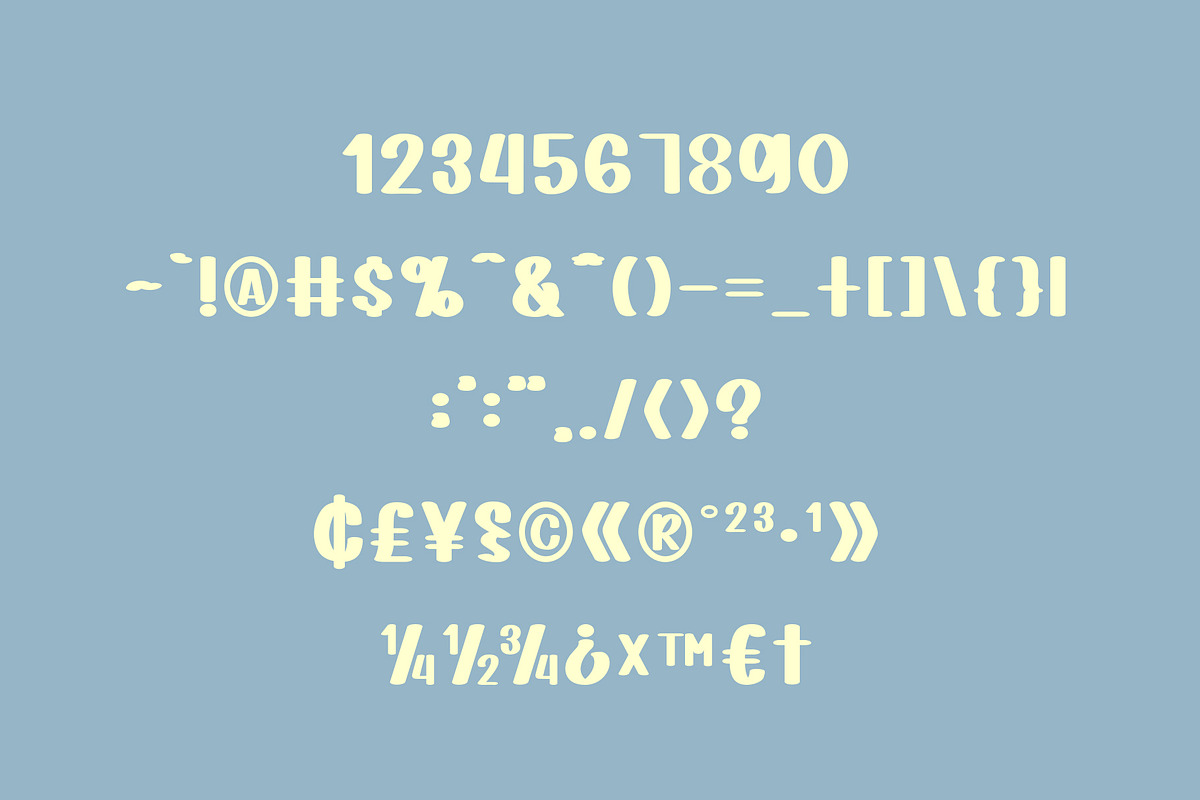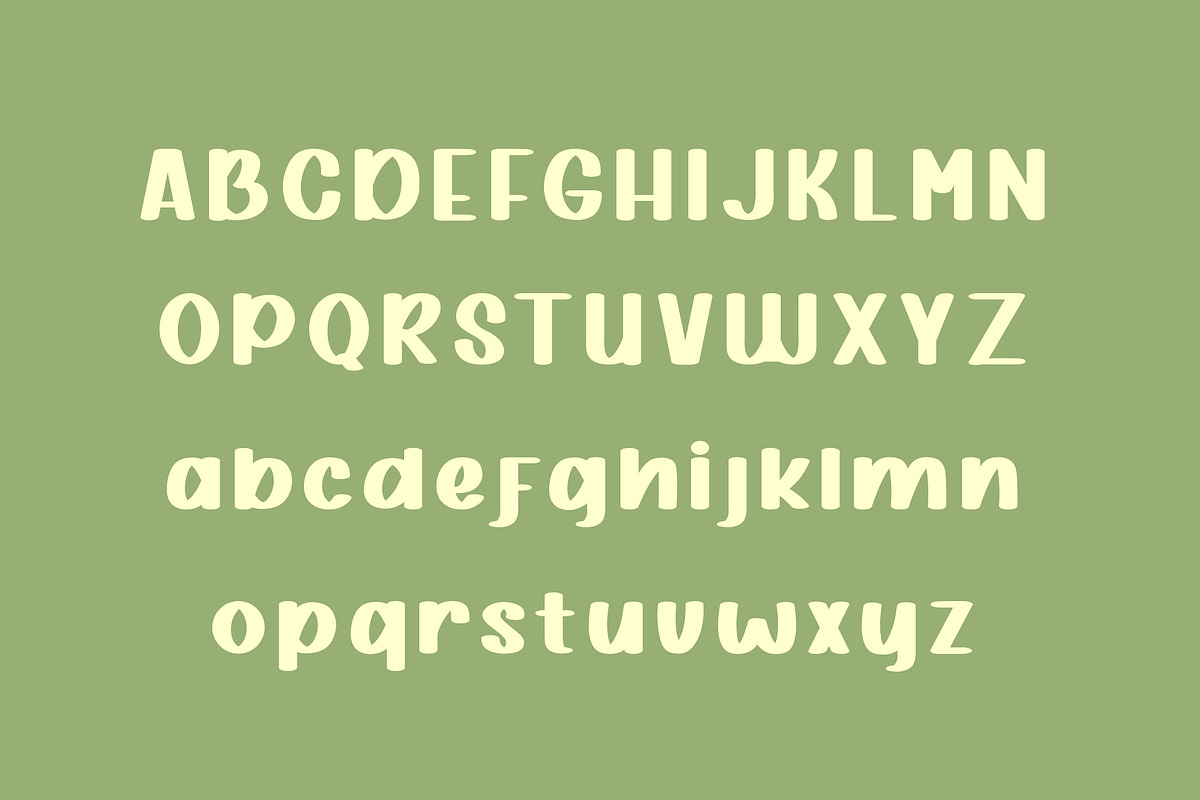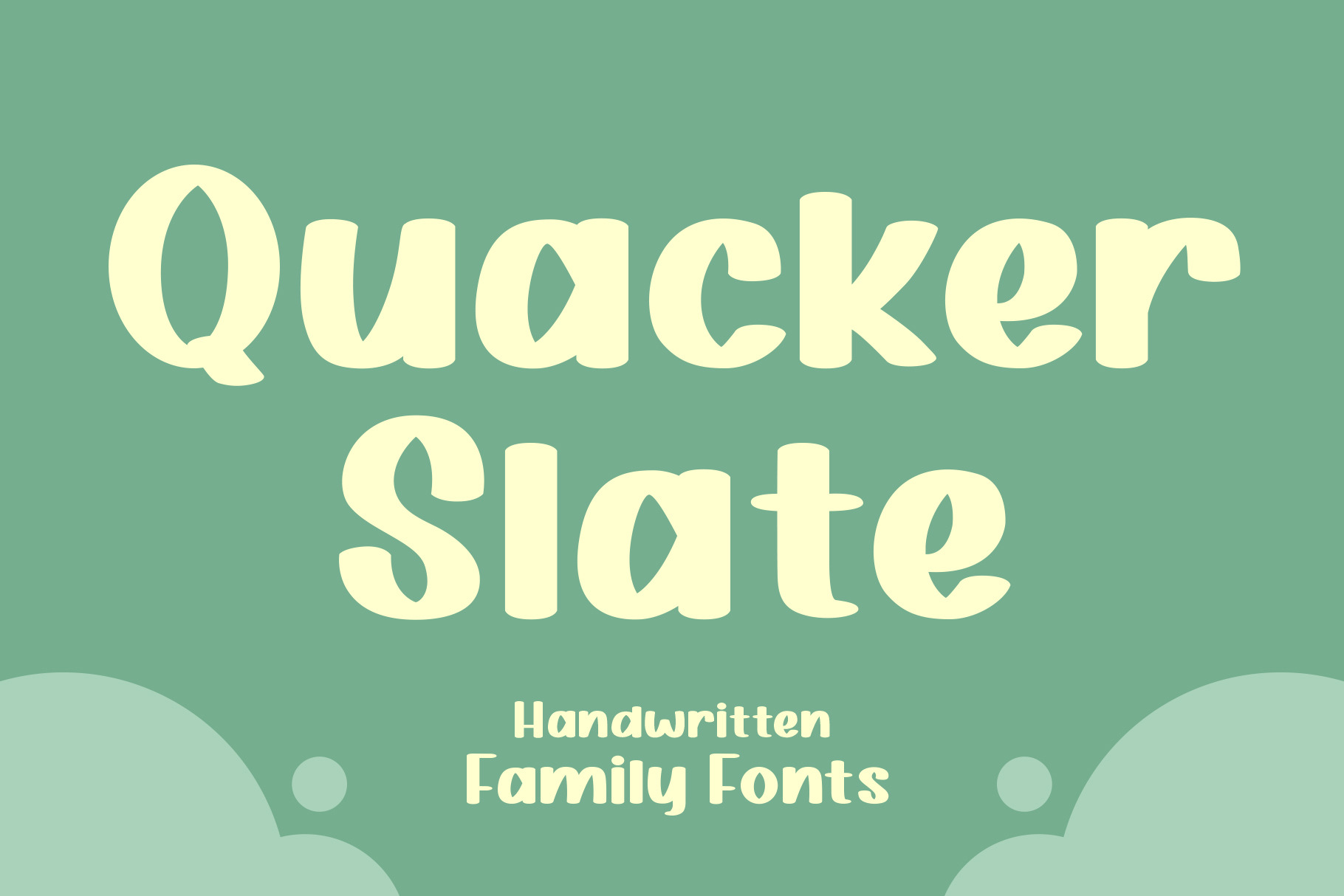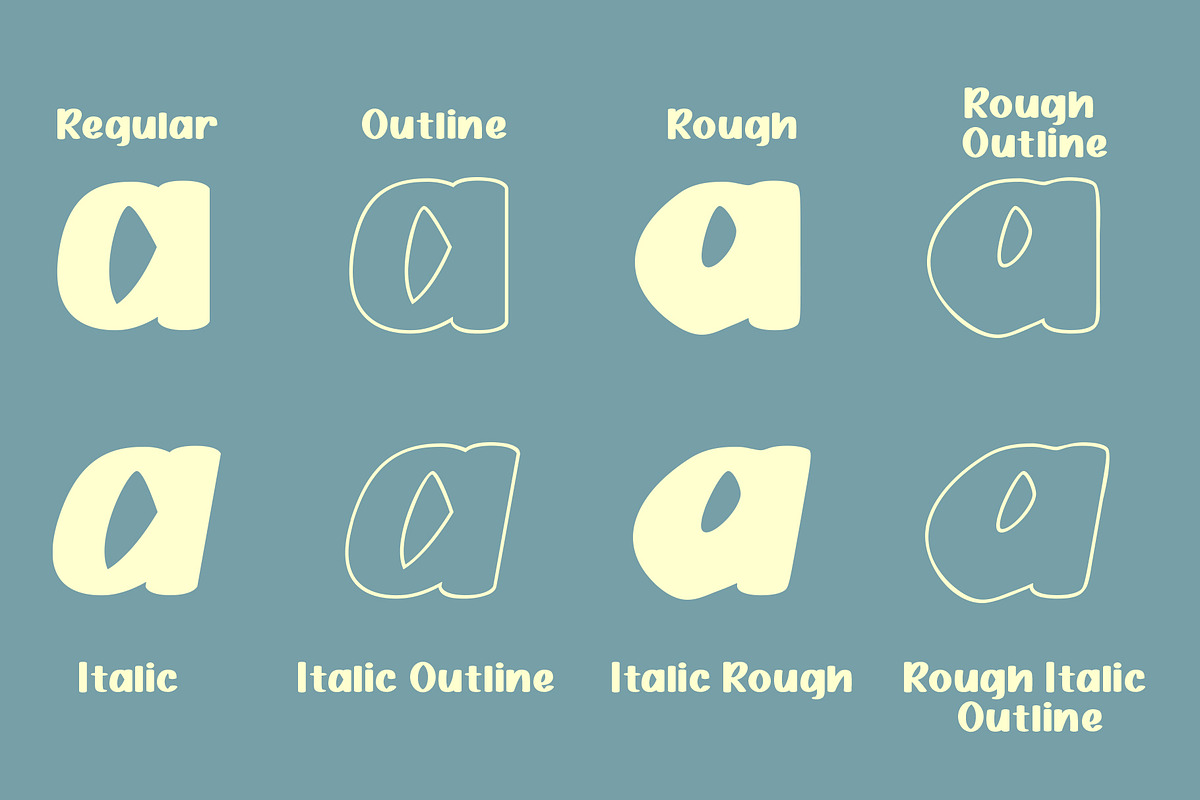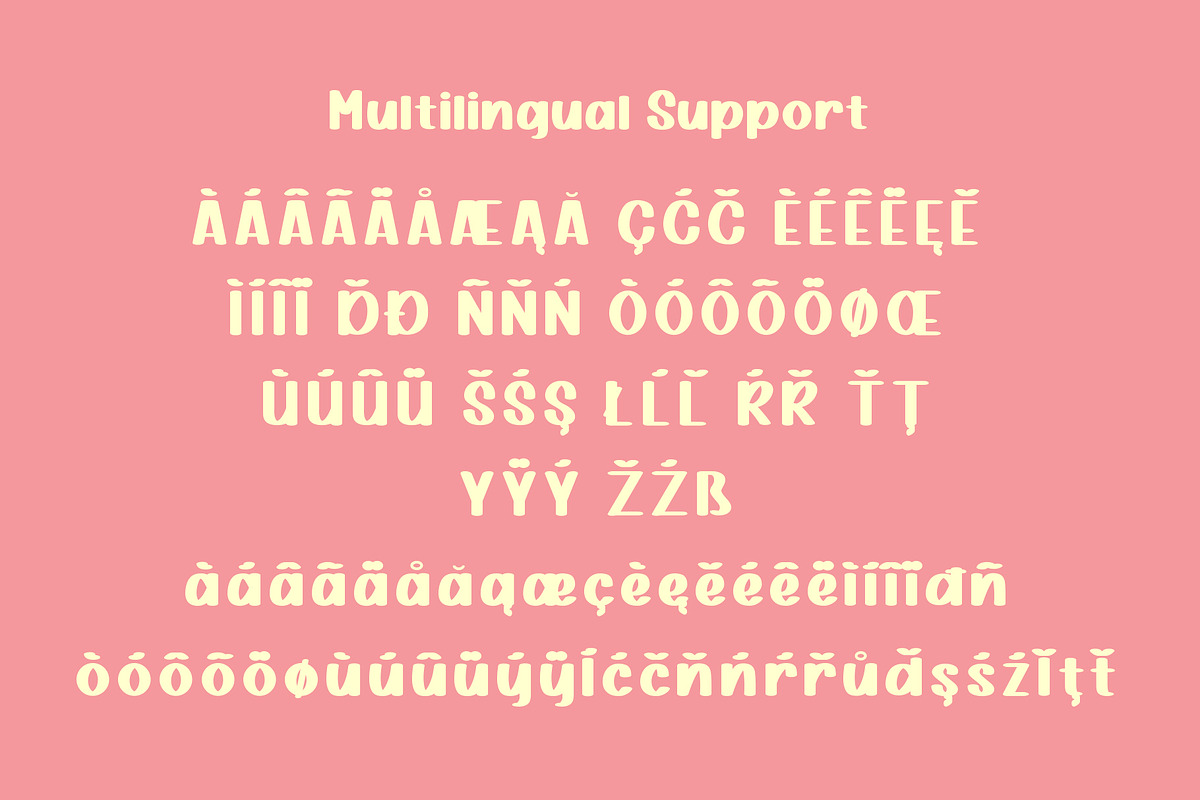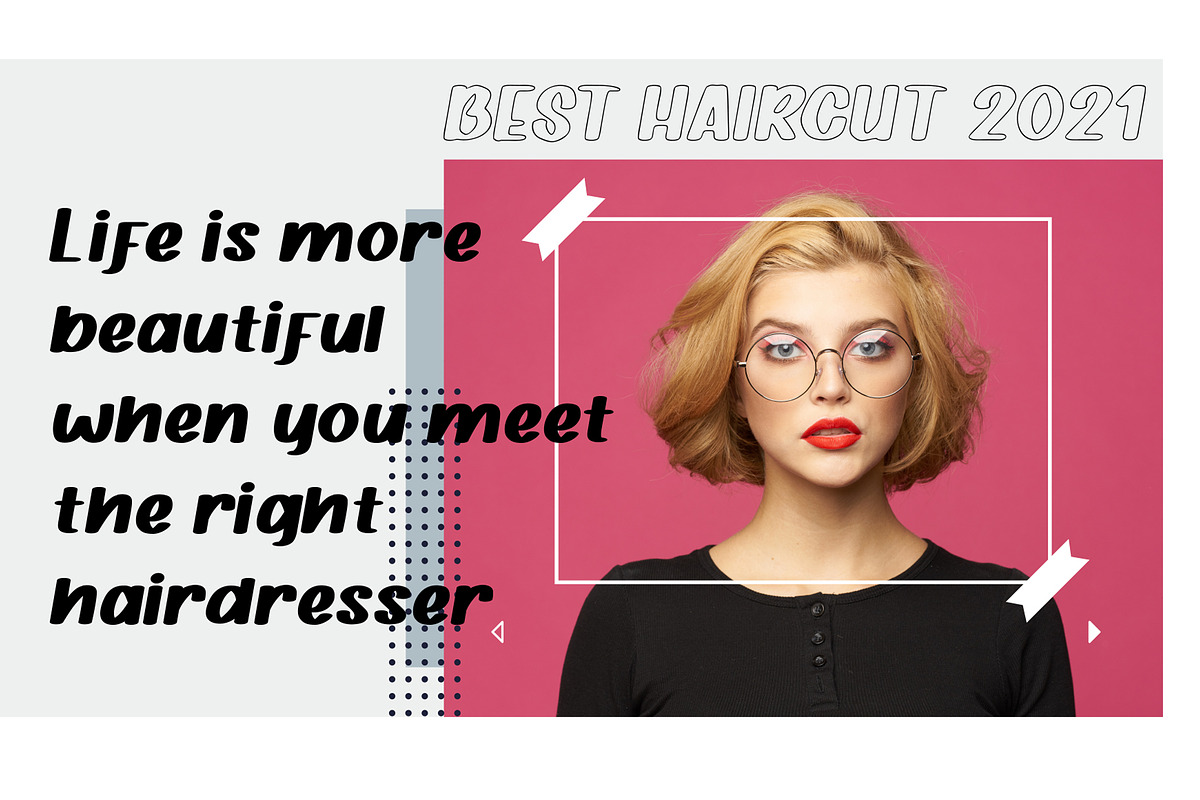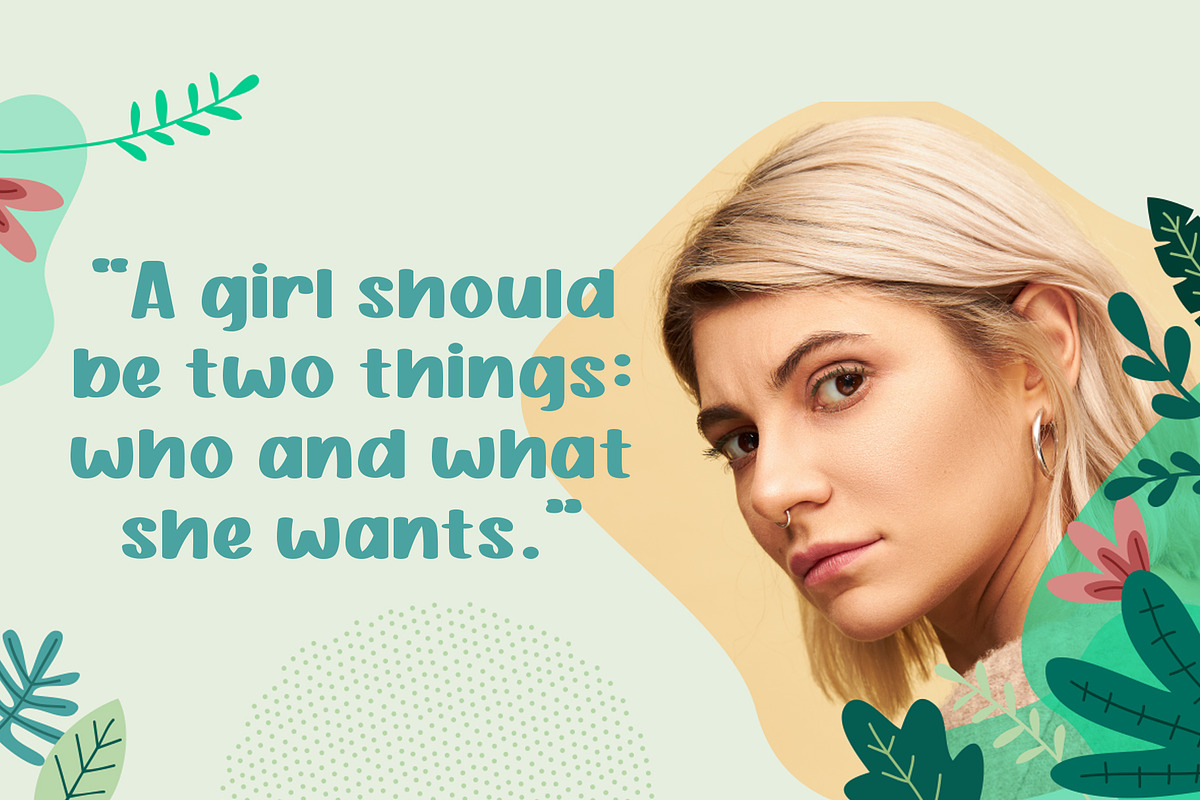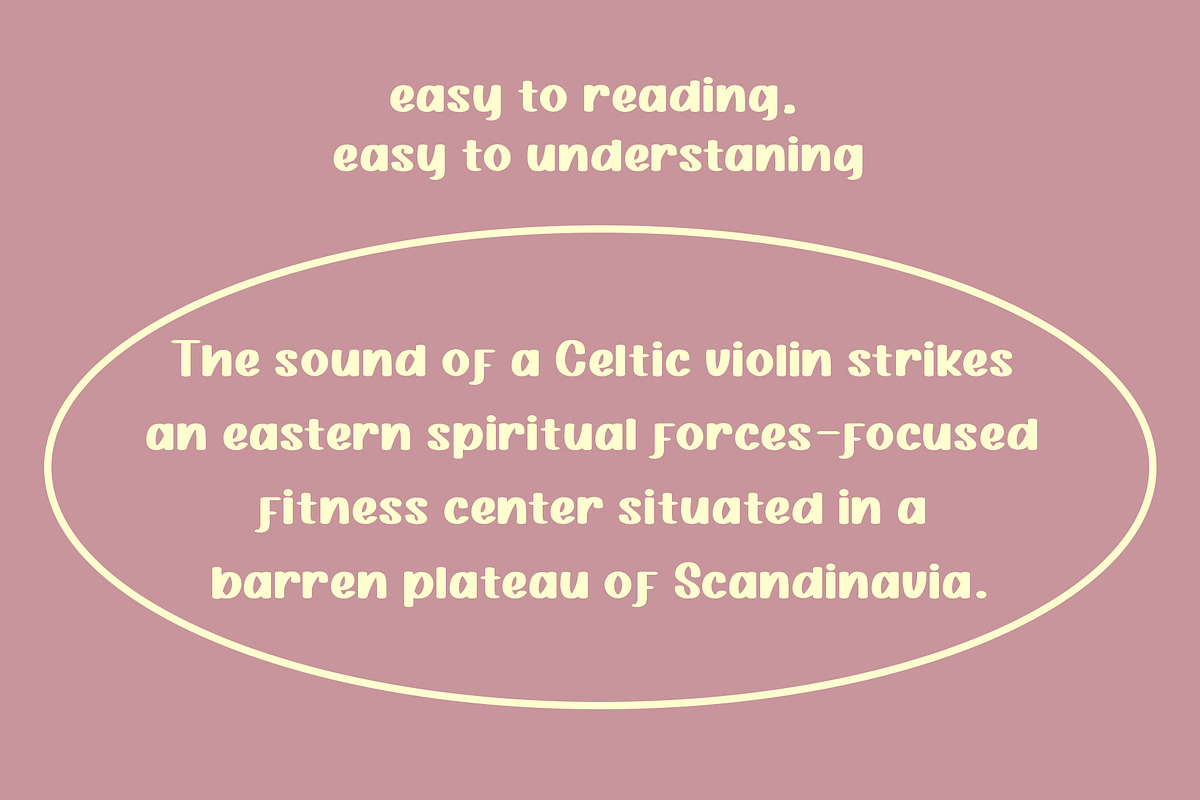
Quacker Slate Family Fonts
introducing A new font Quacker Slate Handwritten .
Quacker Slate is a Family font.
- Outline
- Rough
- Rough Outline
- Italic
- Italic Outline
- Italic Rough
- Italic Rough Outline
What's Character Included ?
- European Multilingual